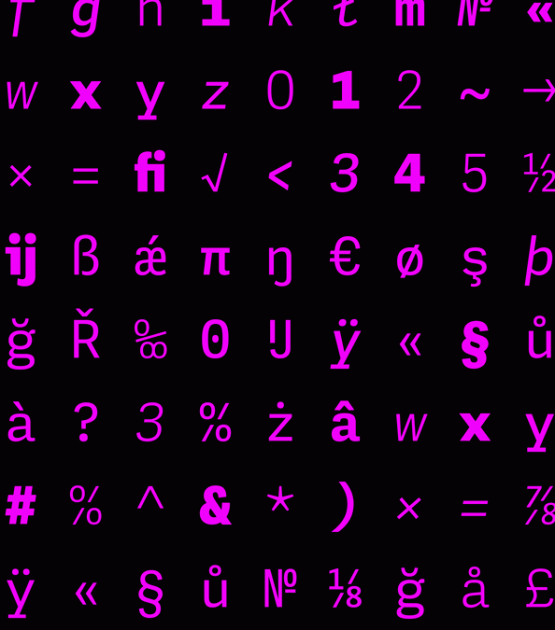
Adelle Mono
Designed by José Scaglione Veronika Burian Irene Vlachou . Released 2020.
Twenty styles designed with both the developer and the aesthete in mind, the Adelle Mono family has a true monospaced width (Mono), a proportional width (Flex), and a variable font that modulates between the two to boost creativity and coherence.
Adelle Mono
A flexible two-width family: monospace for the developer’s code writing and proportional width for public consumption.
The Adelle family continues its stylistic expansion with the release of Adelle Mono and Adelle Mono Flex by Veronika Burian and José Scaglione. Monospaced typefaces are the default choice for developers and programmers and are also an aesthetic choice for many designers and communicators. The Adelle Mono font family has two widths to serve both breeds and a variable font for the flexible spectrum in between.
Monospaced typefaces are born of necessity rather than purely aesthetic values. Each glyph is constrained to a strict box, making the naturally smaller ones the same width as the naturally wider ones. While this serves the functional purpose of keeping text aligned in vertical and horizontal rows, it is completely unnatural in terms of readability. A monospaced ‘l, i’ are overblown compromises while ‘m, w’ become compressed mutations. The Adelle Mono family was therefore designed with both the developer and the aesthete in mind.
Adelle Mono respects its necessary constraints while still being visually appealing and easily read. Activate it for use in Sublime, Swift, Terminal, or your IDE of choice and see how well it performs. Clarity will lead to less developer mistakes, and its aesthetic appeal will make your work enjoyable.
Adelle Mono Flex is the proportional width version that works for any kind of normal text reading or a design intended to invoke “system or information aesthetics”. Opposite the demands of the monospace family, Flex is reader friendly and intended for branding, annual reports, paragraphs, UI, logos, posters, screens, tables, captions, and more. Employ the Mono version where monospace is needed and the Flex version where reading or coherence is priority.
Adelle Mono’s experimental 20-style design explores the space between proportional and monospaced types. It boosts creativity and coherence by providing flexible options in the same family, including italics and the variable font format with an axis of weight and a spectrum axis between multi-width and monospaced characters. Combining Adelle Mono with either Adelle or Adelle Sans adds more layers and adaptability to your work.
Lead design and concept
Veronika Burian, José Scaglione
Designer
Irene Vlachou
Assistant designer
Pooja Saxena